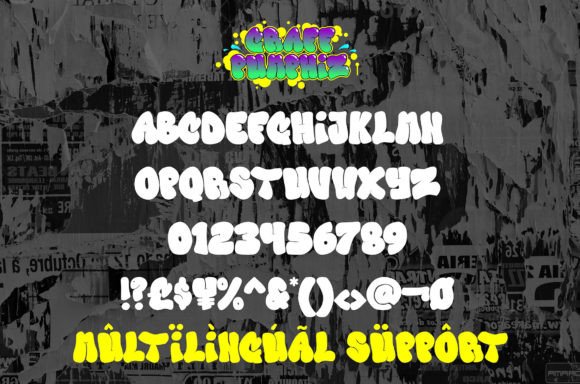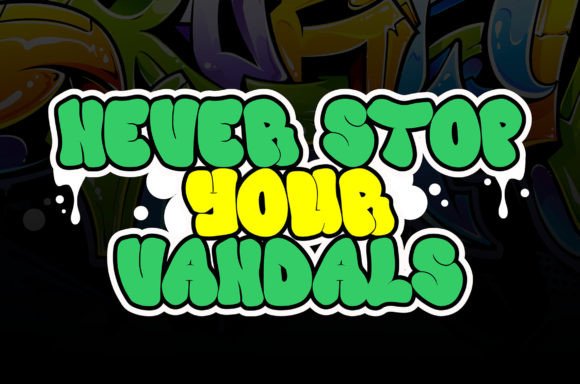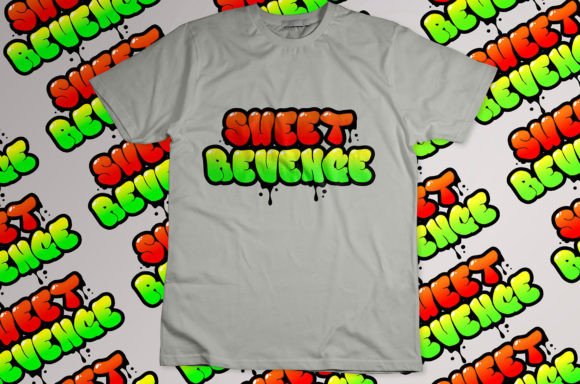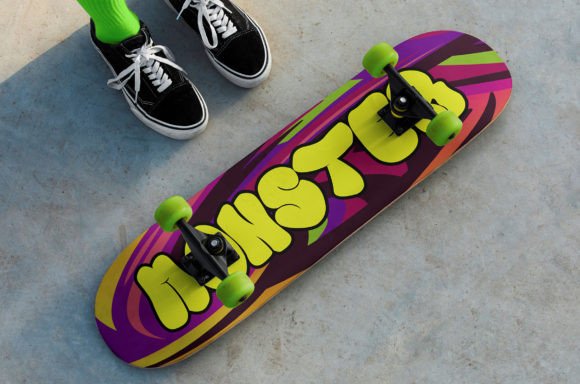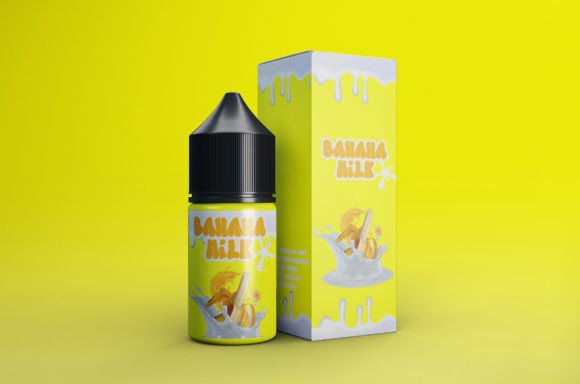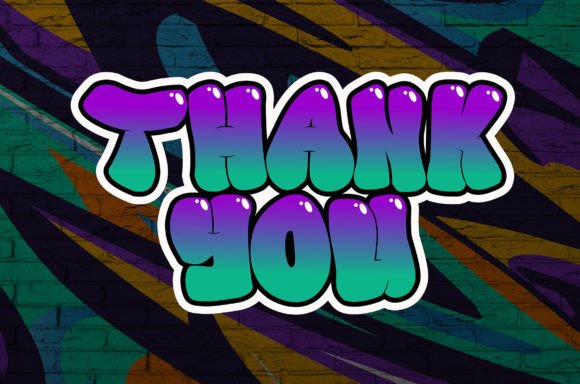
Introducing Graff Pumphiz Font: Unleash Your Creativity with a Rebellious Urban Graffiti Style
In the world of design, fonts play a crucial role in conveying the tone and personality of a project. For designers and crafters looking to add an edgy touch to their work, the Graff Pumphiz font is an excellent choice. This urban graffiti font is designed to make a bold statement, with its distinctive bubble edges and rebellious style. In this article, we’ll explore the features and benefits of Graff Pumphiz, and why it’s the ultimate font choice for music posters, apparel designs, streetwear, and more.
The Urban Graffiti Style of Graff Pumphiz
Graff Pumphiz is an urban graffiti font that embodies the spirit of street art. Its bold and edgy design makes it perfect for projects that require a rebellious attitude. The font’s distinctive bubble edges give it a unique and eye-catching appearance, setting it apart from other fonts. Whether you’re designing a music poster, a t-shirt, or a streetwear brand, Graff Pumphiz is sure to make a statement.
Key Features of Graff Pumphiz
- Bold and Edgy Design: Graff Pumphiz boasts a bold and edgy design that’s perfect for making a statement.
- Distinctive Bubble Edges: The font’s unique bubble edges give it a distinctive and eye-catching appearance.
- Urban Graffiti Style: Graff Pumphiz is designed to capture the spirit of urban graffiti, making it perfect for street art-inspired projects.
- Versatile: The font is versatile and can be used for a variety of projects, including music posters, apparel designs, streetwear, and more.
Graff Pumphiz is an excellent choice for designers and crafters who want to add an edgy touch to their work. The font is easy to use and can be incorporated into a variety of projects, from print designs to digital media. Whether you’re a professional designer or a DIY crafter, Graff Pumphiz is a great addition to your font collection.
Use Cases for Graff Pumphiz
Graff Pumphiz is a versatile font that can be used for a variety of projects, including:
- Music Posters: Add a rebellious touch to your music posters with Graff Pumphiz.
- Apparel Designs: Create eye-catching apparel designs with Graff Pumphiz.
- Streetwear: Use Graff Pumphiz to create bold and edgy streetwear designs.
- Branding: Use Graff Pumphiz to add a rebellious touch to your brand’s identity.
Why Choose Graff Pumphiz?
There are many fonts available, but Graff Pumphiz stands out from the rest. Here are a few reasons why:
- Unique Style: Graff Pumphiz has a unique style that’s unlike any other font.
- Easy to Use: The font is easy to use and can be incorporated into a variety of projects.
- Versatile: Graff Pumphiz is versatile and can be used for a variety of projects.
- High-Quality: The font is high-quality and will make your projects stand out.
| Font Name | Graff Pumphiz Font |
| Author | Cikareotype |
In conclusion, Graff Pumphiz is an excellent choice for designers and crafters looking to add an edgy touch to their work. Its bold and edgy design, distinctive bubble edges, and urban graffiti style make it perfect for music posters, apparel designs, streetwear, and more. With its versatility, ease of use, and high-quality design, Graff Pumphiz is the ultimate font choice for anyone looking to make a bold statement.